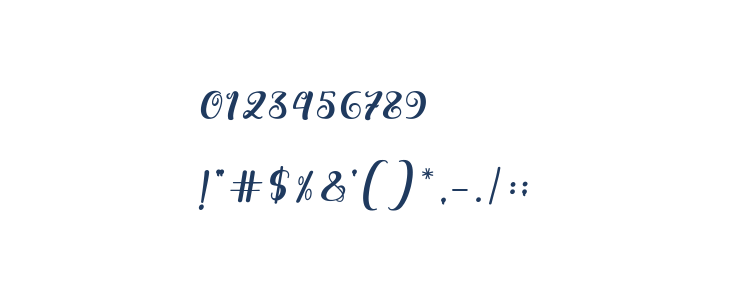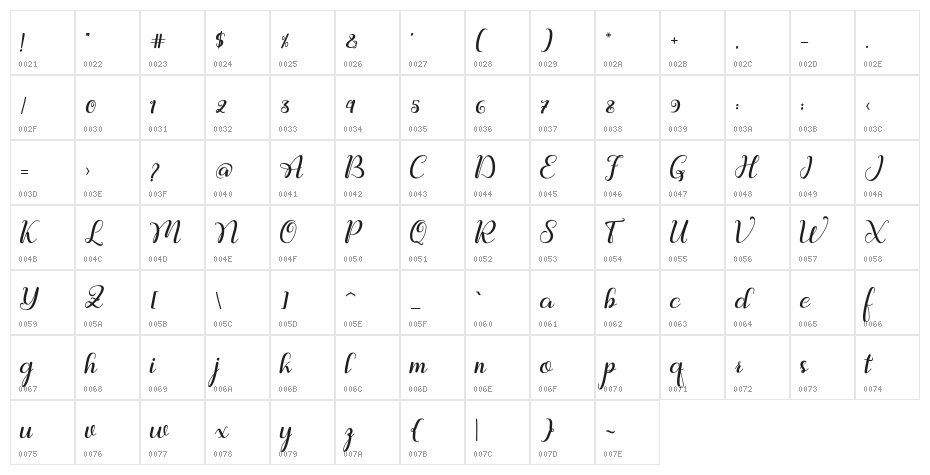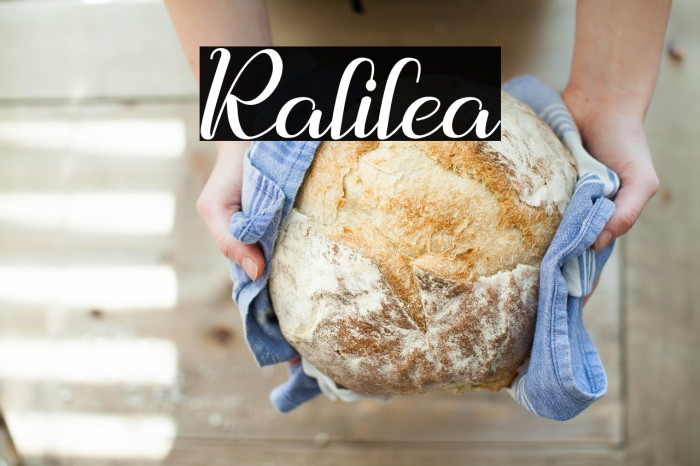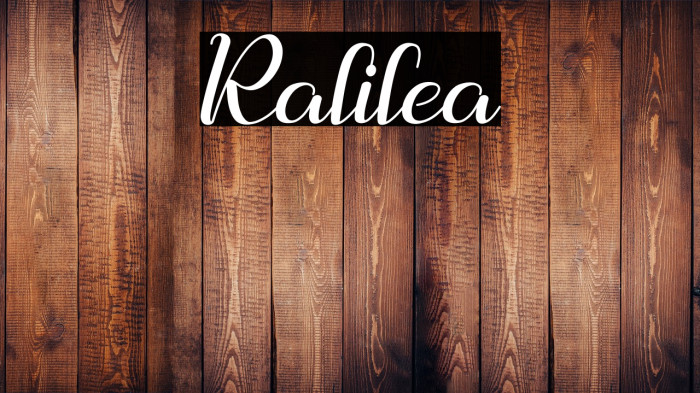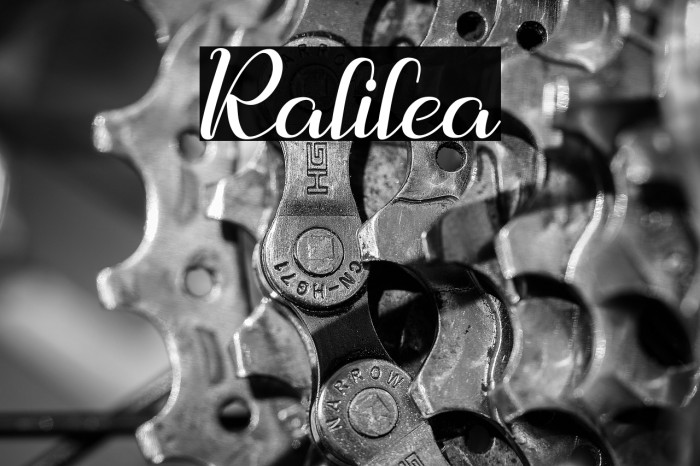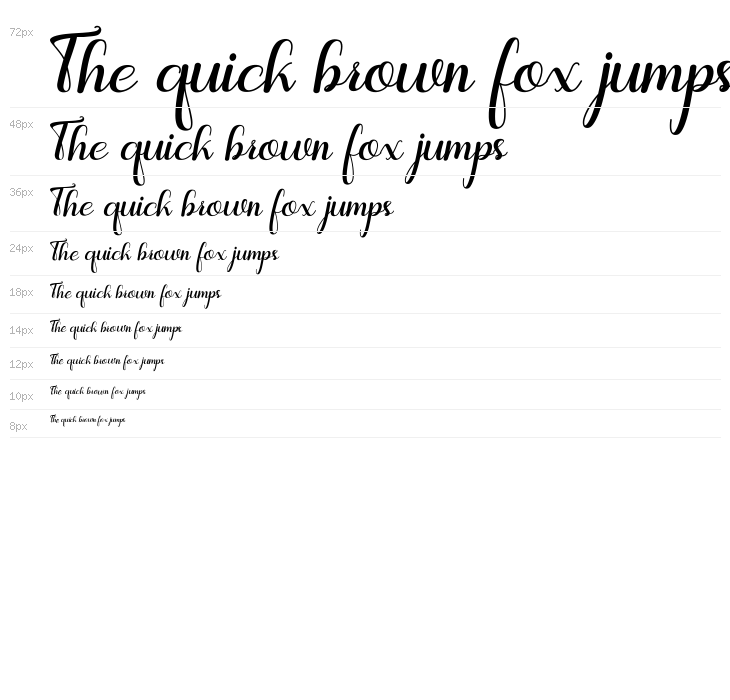
Ralilea Font
Ralilea Description
This elegant script font features flowing, interconnected letters that exude a sense of sophistication and grace. The uppercase letters are ornate, with intricate loops and flourishes that add a decorative touch. The lowercase letters maintain a consistent style, with smooth curves and a slight slant that enhances readability. The numerals are stylishly designed, complementing the overall aesthetic of the font. Special characters are thoughtfully crafted, ensuring they blend seamlessly with the rest of the typeface. This font is perfect for projects that require a touch of elegance and refinement.
| Proposed Projects | Ideal for wedding invitations, elegant branding, luxury packaging, and sophisticated logos. |